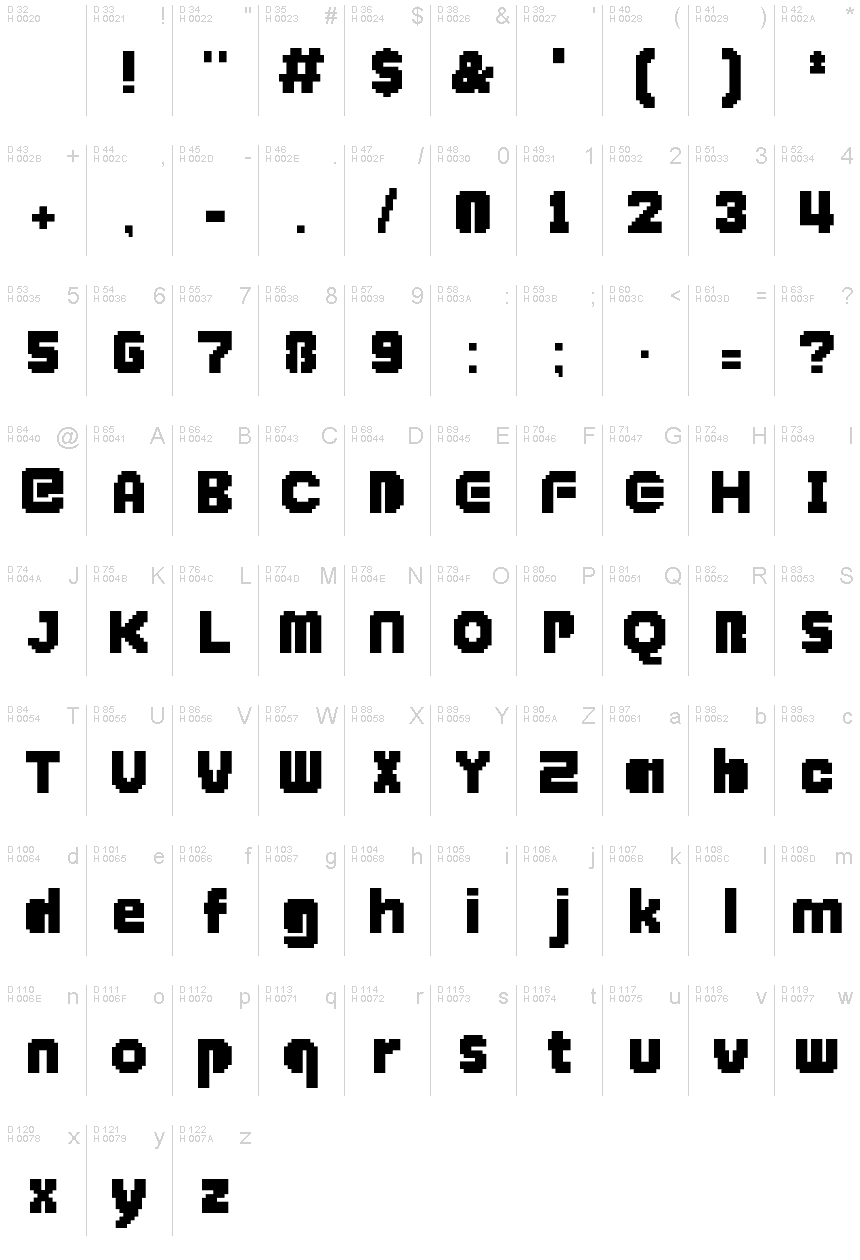
SuperMario85
Super Mario 85 is a bold display font designed by rurr, inspired by the iconic video game. With its digital pixelated style, this font is perfect for game-related projects such as mobile apps, websites, and logos. Its retro vibe also makes it suitable for retro-themed designs like posters and t-shirts. The bold weight ensures maximum impact and readability at any size. Whether you're creating a new game or designing a nostalgic piece, Super Mario 85 will transport your audience back to the golden age of gaming with its playful and distinctive style.